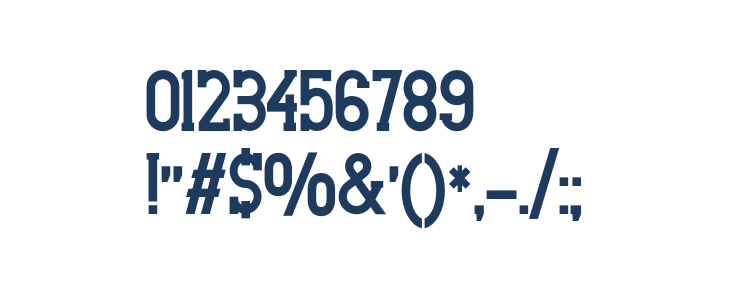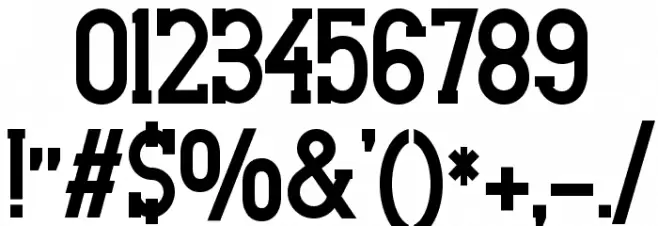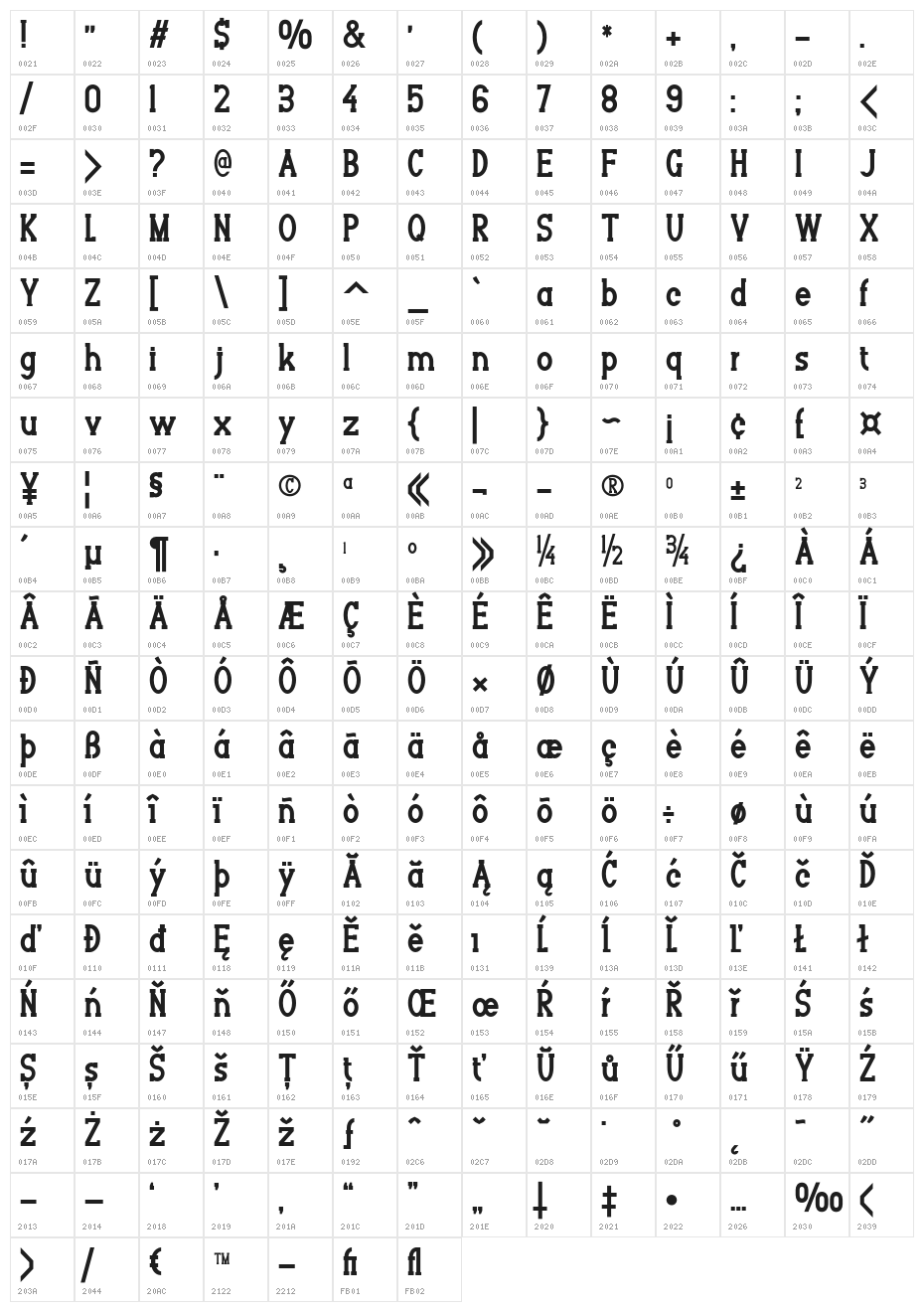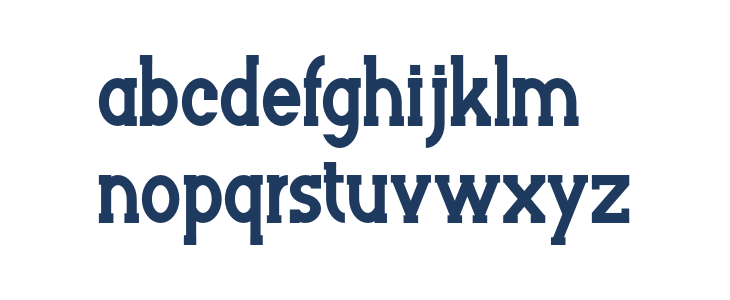
Berlian Font
Berlian Description
This font features a bold and robust design, characterized by thick strokes and a strong presence. The uppercase letters are tall and commanding, while the lowercase letters maintain a consistent weight, providing a harmonious balance. The numerals are clear and distinct, ensuring readability. Special characters are crafted with the same boldness, making them stand out. The overall design is reminiscent of classic serif fonts but with a modern twist, making it versatile for various applications.
| Proposed Projects | Ideal for headlines, posters, branding, and any project requiring a strong visual impact. |